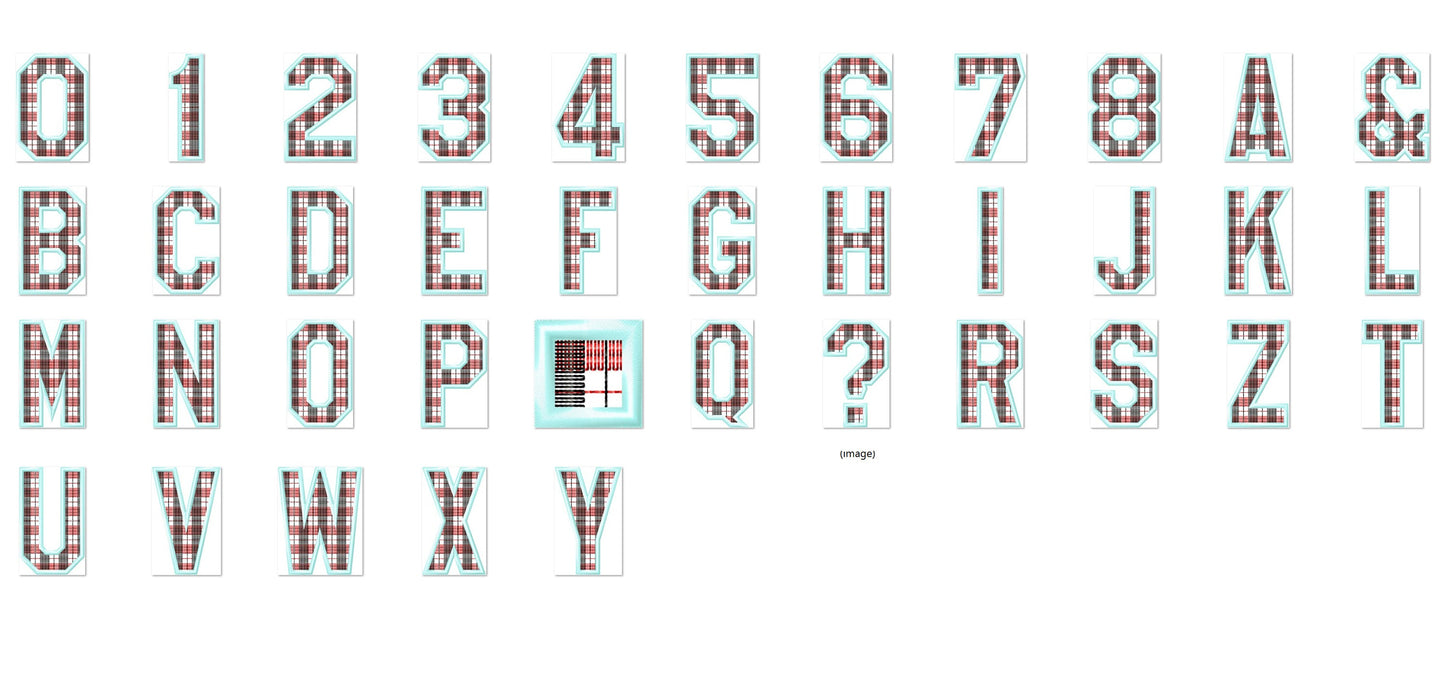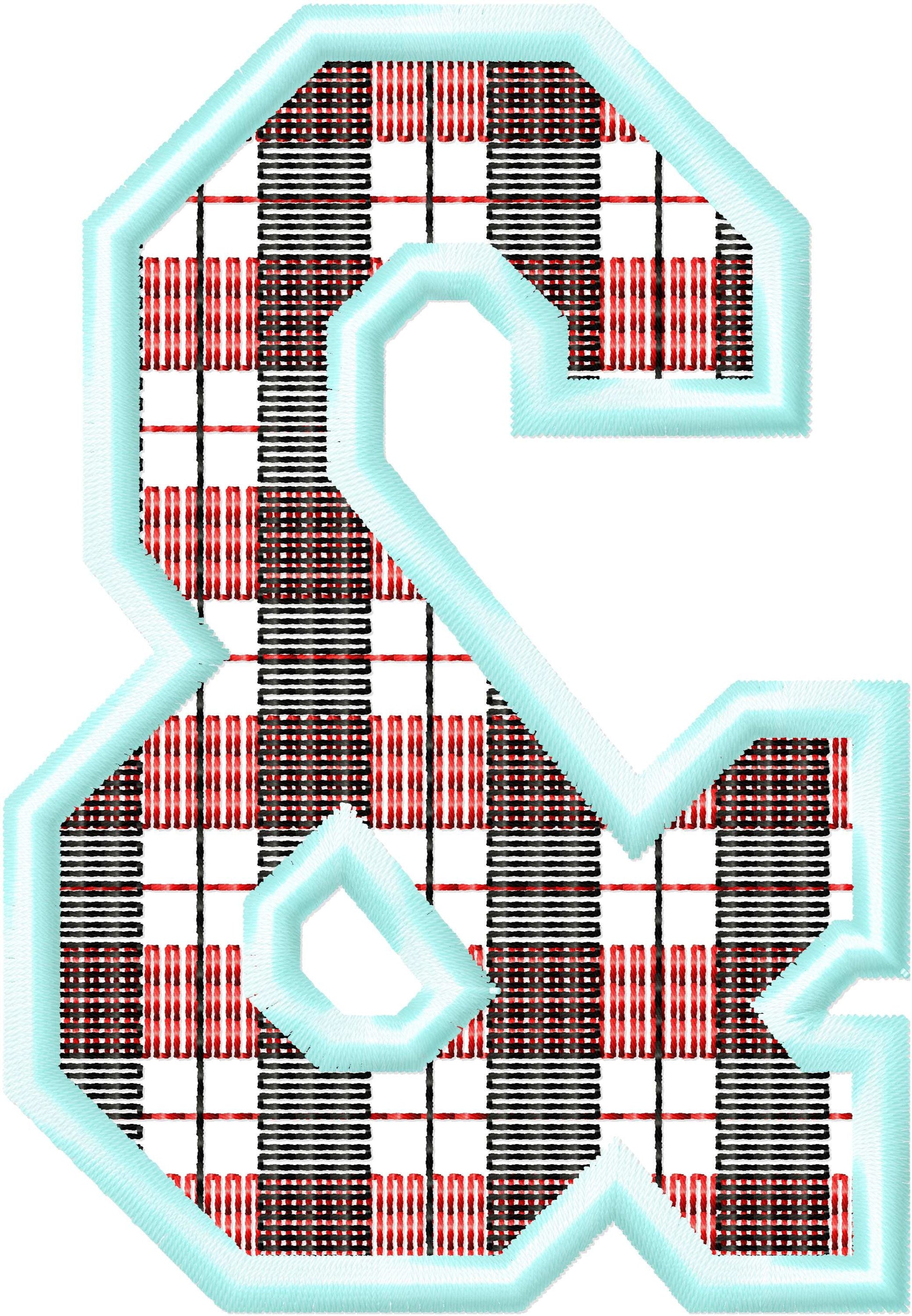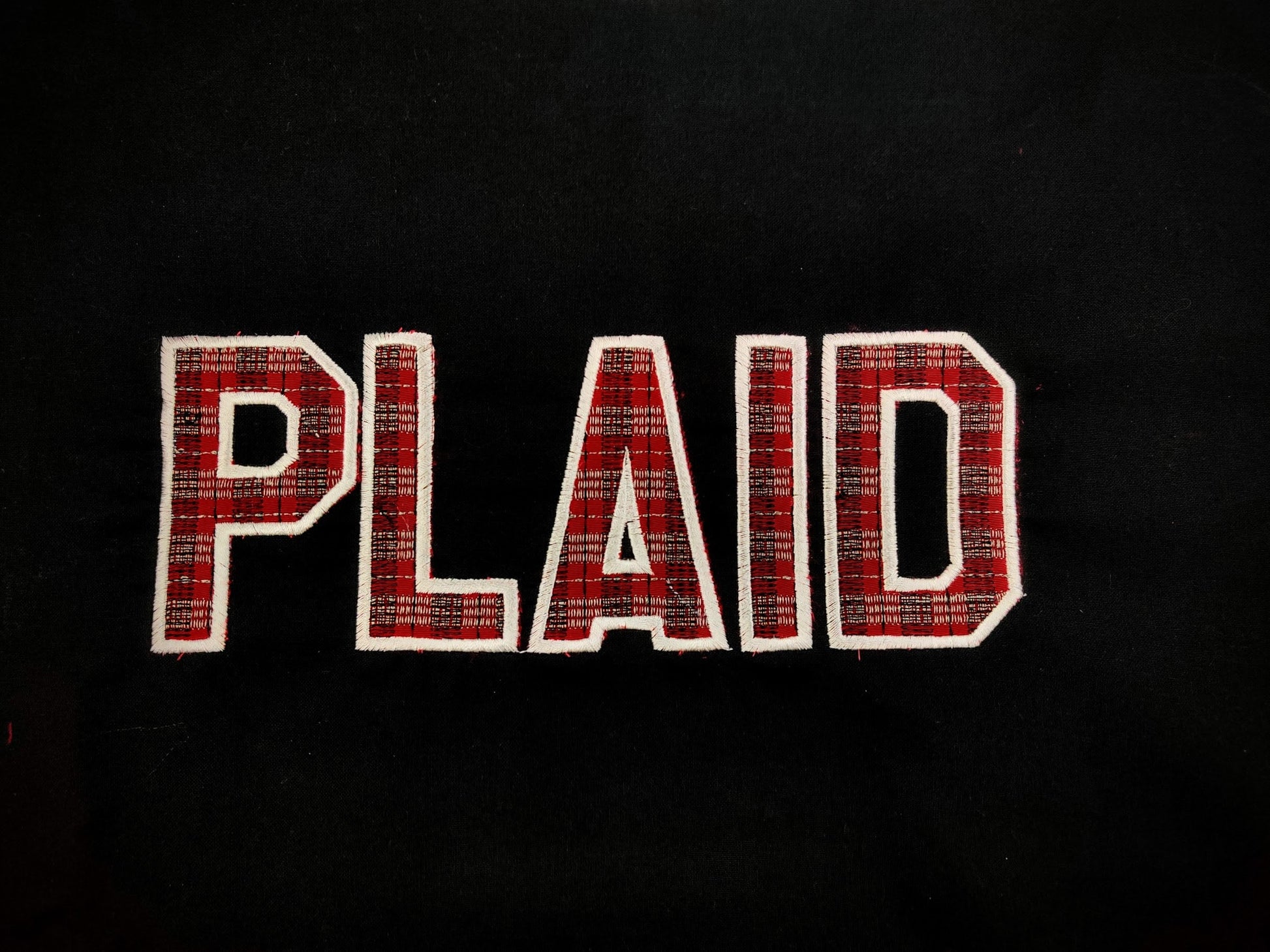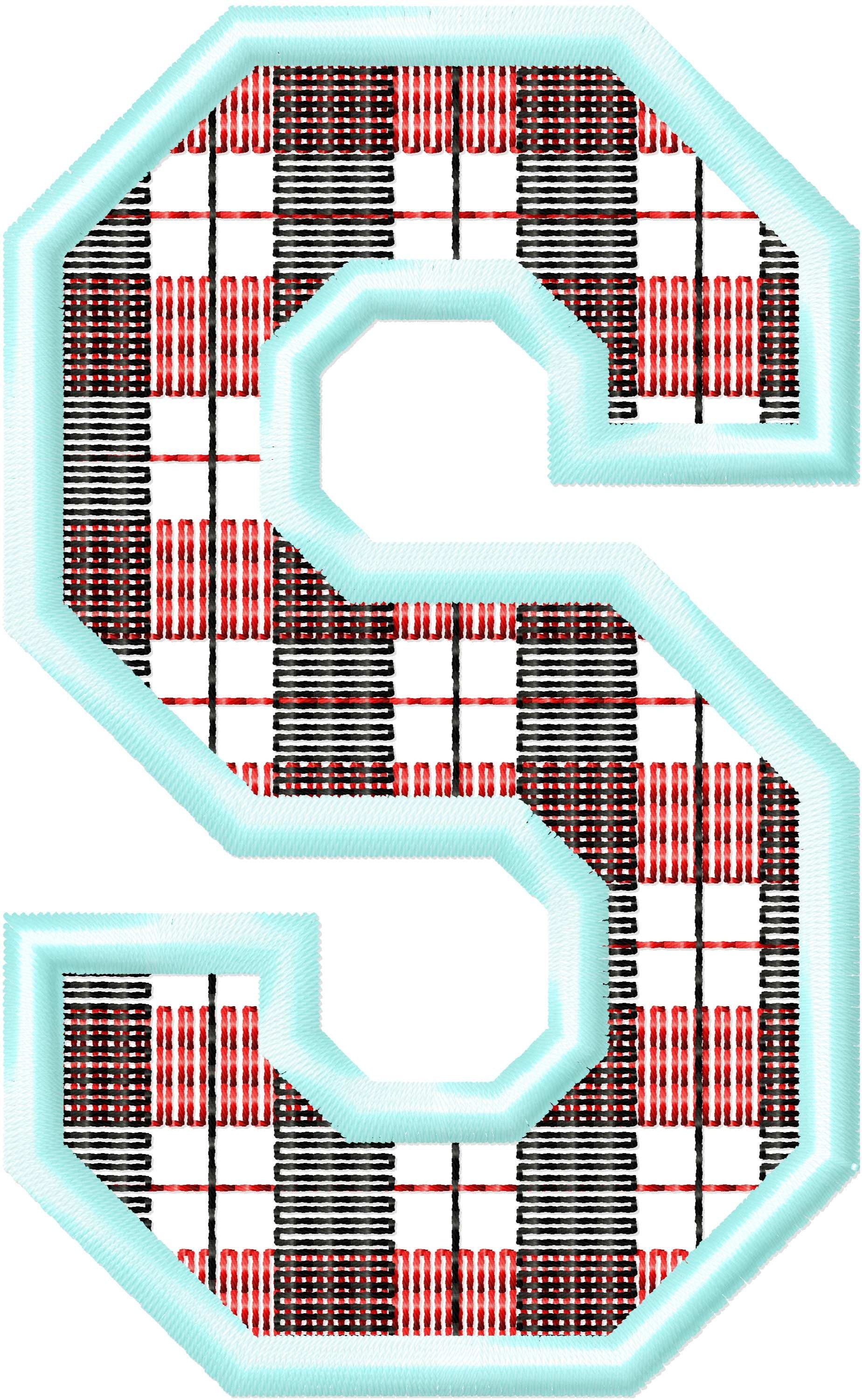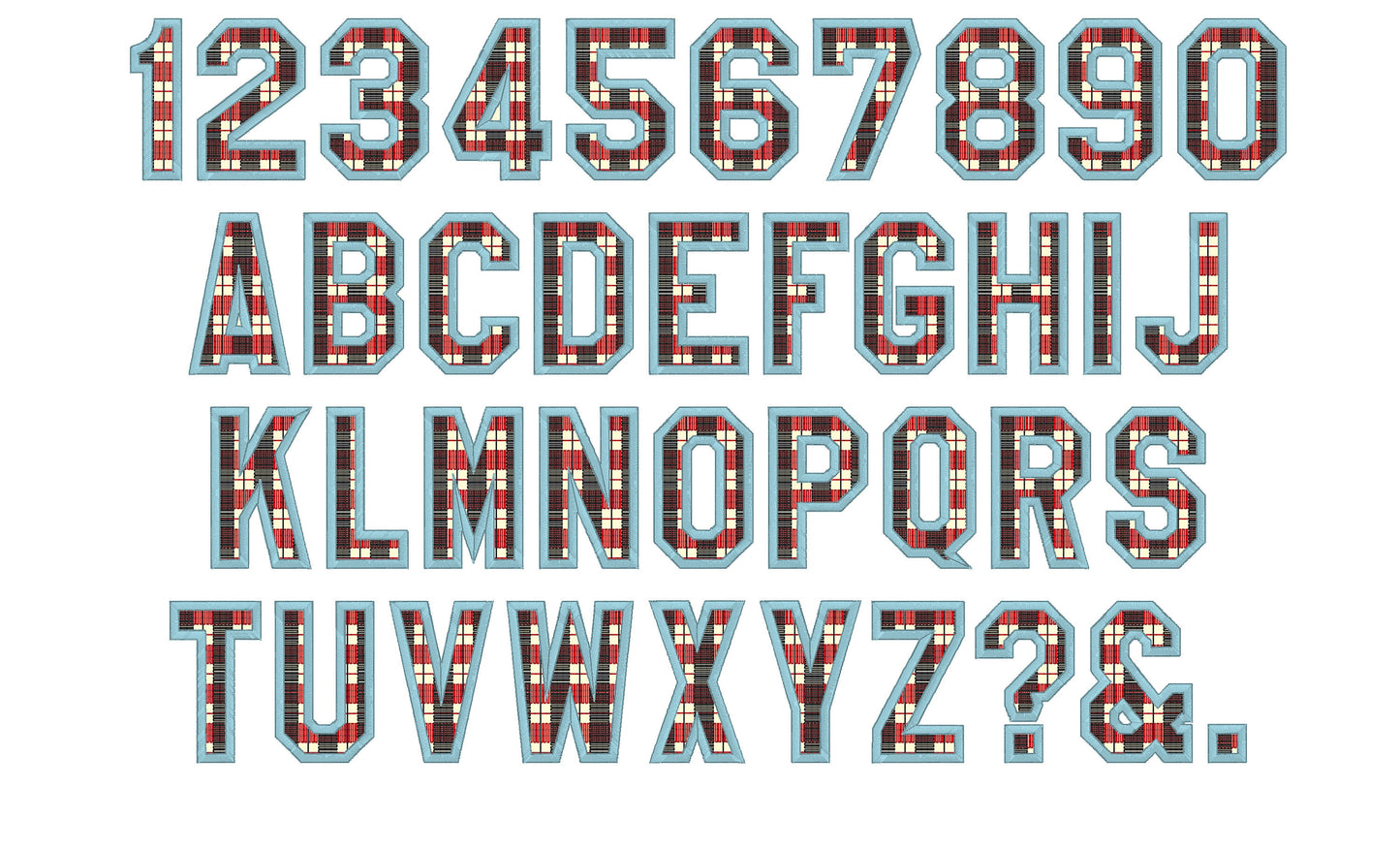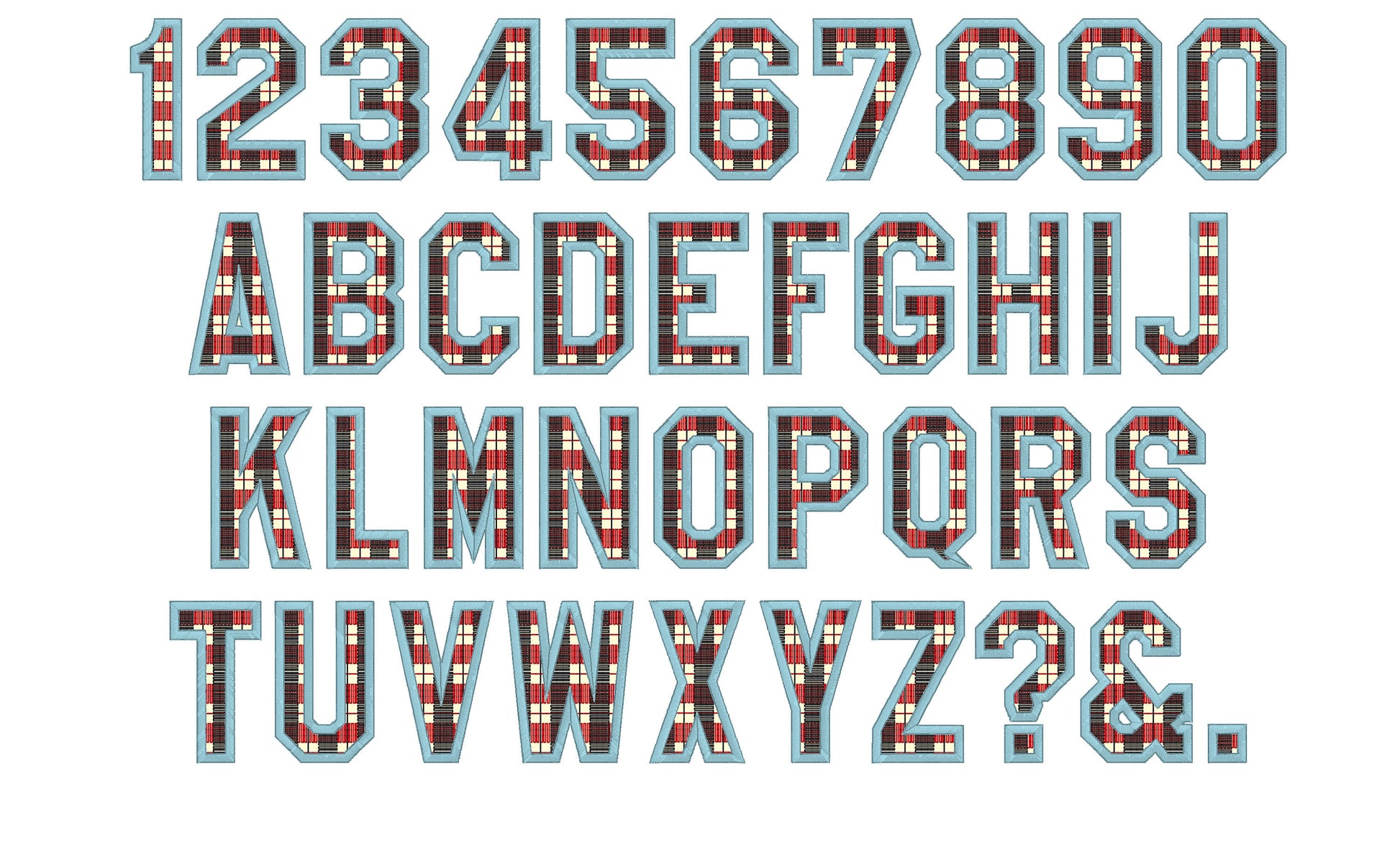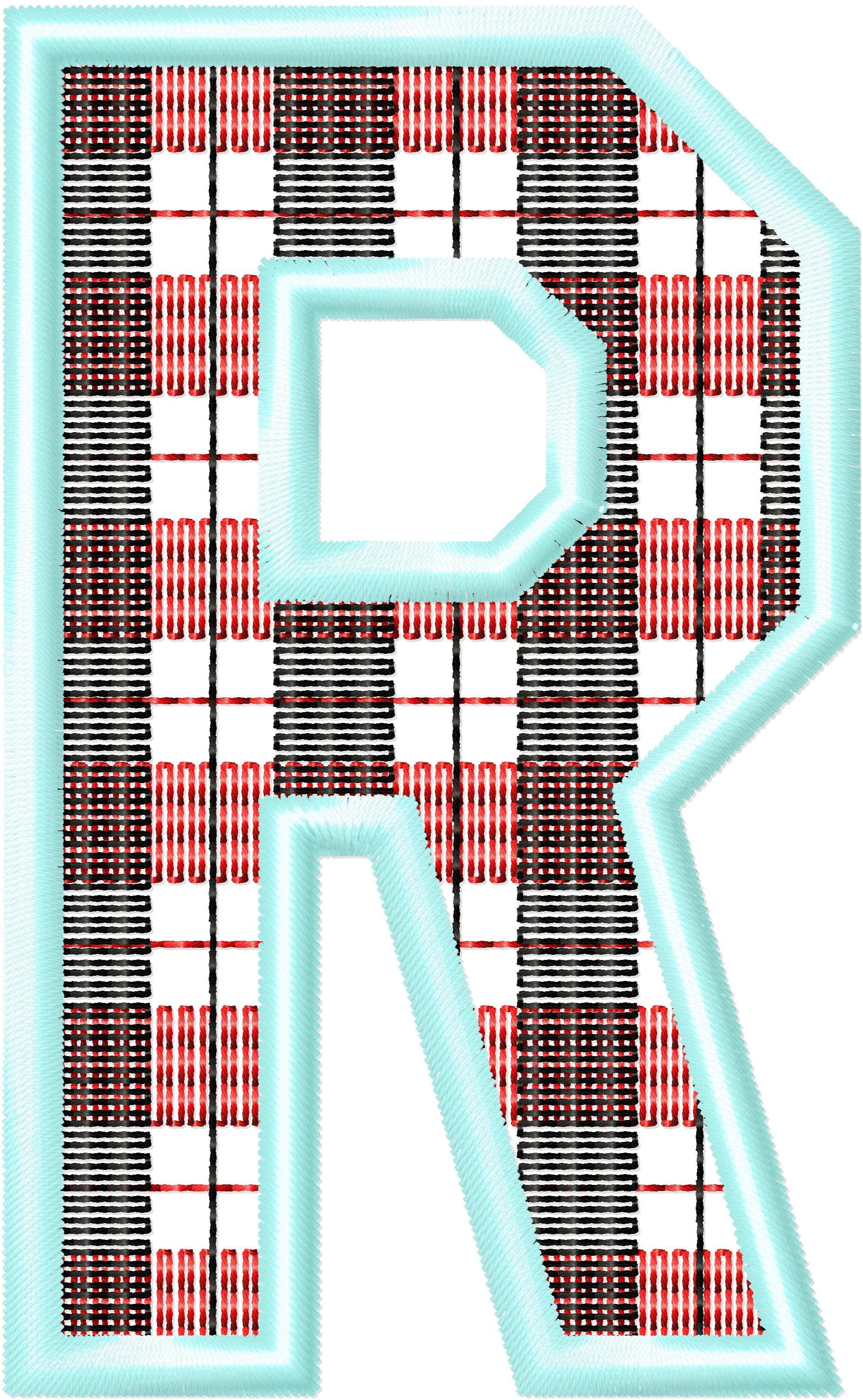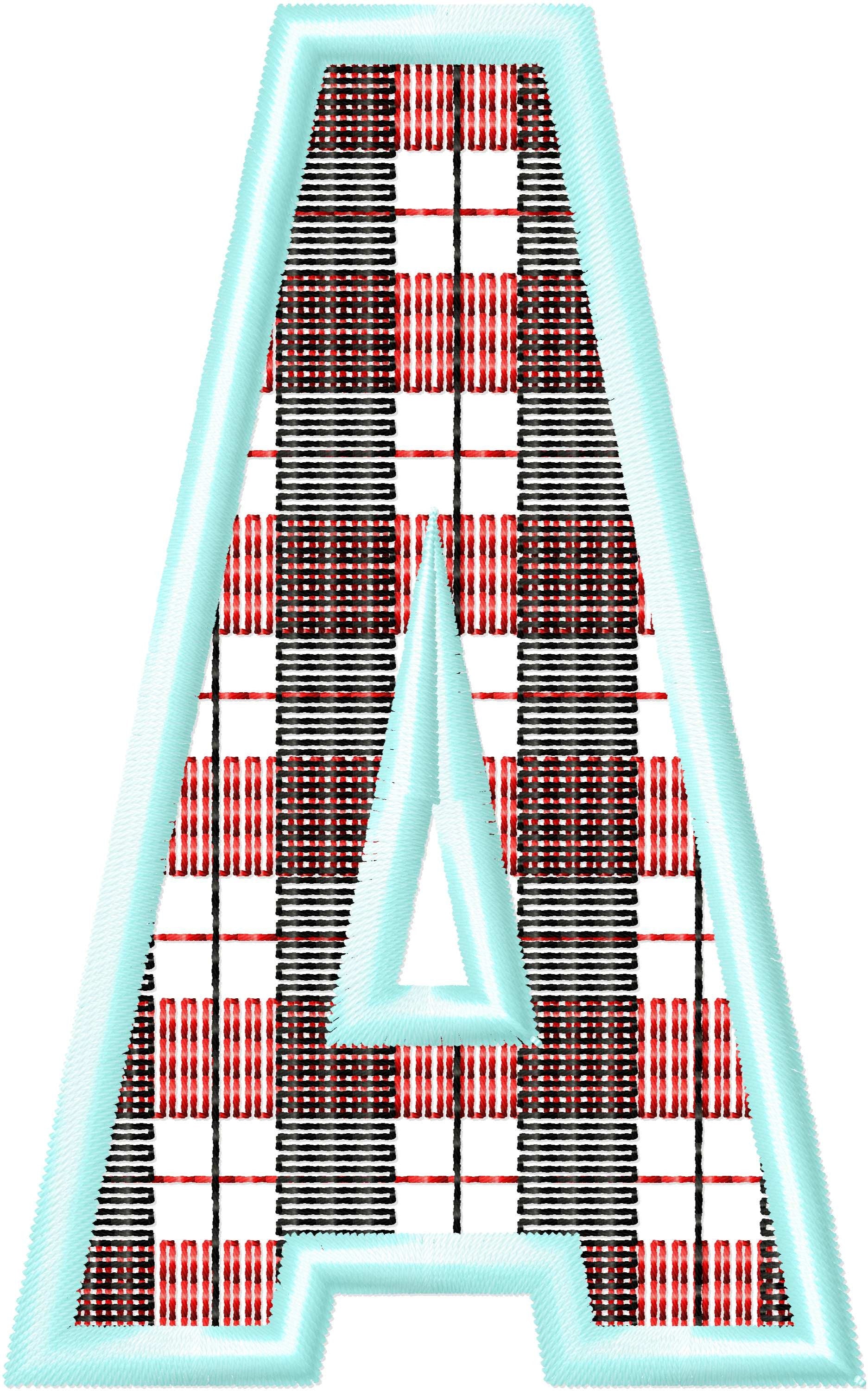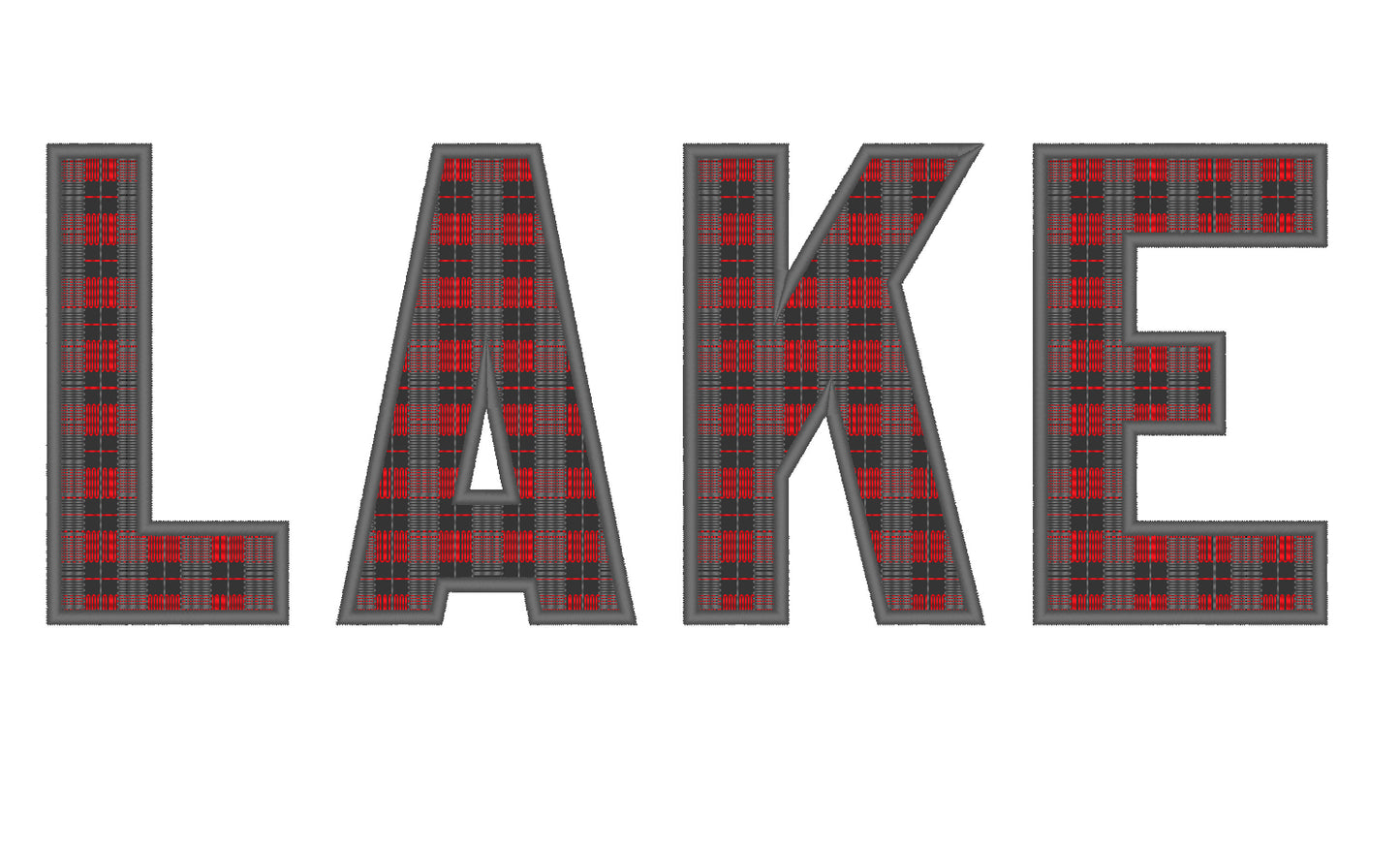
Buffalo Plaid Patterned Sport Font Applique
Or click to open the linkA buffalo plaid sport font in applique, with letters and numbers. Great for team names and numbers on jerseys, sweatshirts, stockings and bags.
Letters A to Z, numbers 0 to 9 and a few symbols. Letters come in seven sizes: 2, 3, 3.5, 4, 5, 6 and 7 inches. The gingham plaid is stitched as part of the applique.
- Letters A to Z, numbers 0 to 9 and symbols
- Buffalo plaid applique